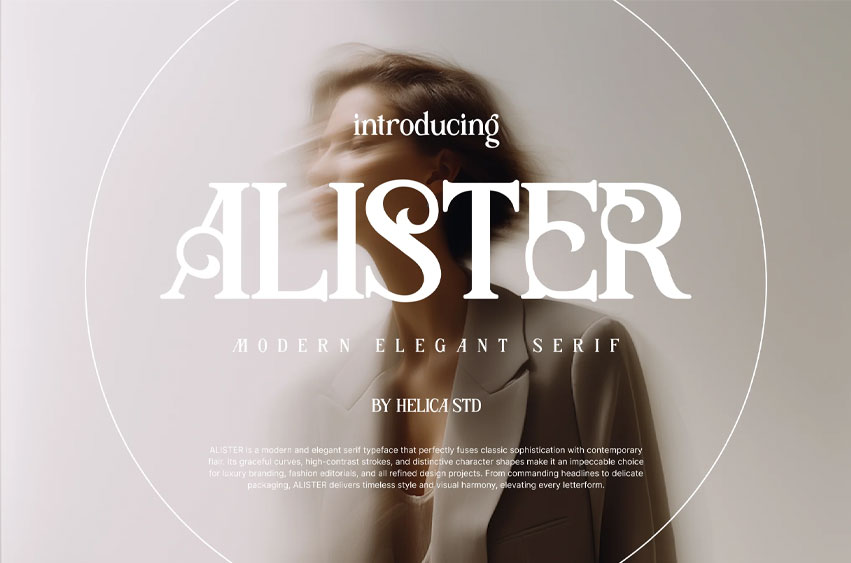
Alister Font
Alister Font Modern Elegant Serif Font is a refined modern serif typeface that radiates timeless elegance and upscale sophistication. Designed with high-contrast strokes and unique letterforms, Alister brings a contemporary yet classic vibe to any visual identity. Perfect for luxury brands, fashion projects, and editorial layouts, this font enhances every letter with grace and poise.
Suitable For: Fashion branding and editorial spreads, Beauty product packaging and ads, High-end business logos and websites, Lifestyle magazine layouts, Wedding invitations and stationery, Elegant presentations and pitch decks, elegant serif font, modern luxury typeface, high fashion font, editorial serif, classy branding font, minimalist serif, timeless typography